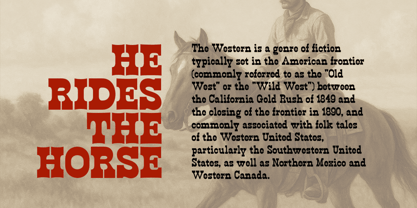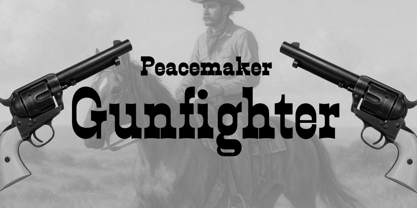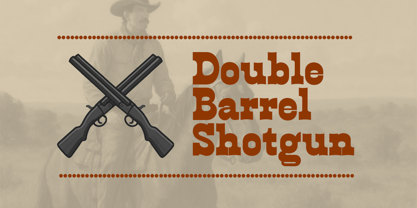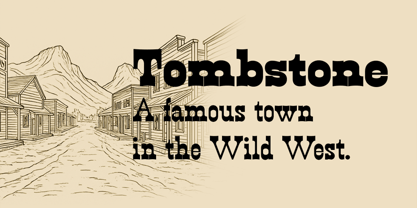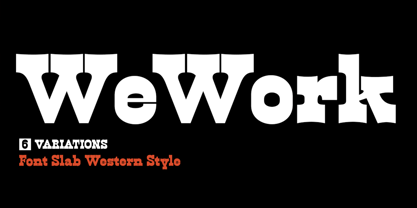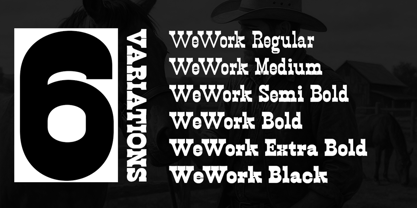
We Work
by Artisan Studio
The We Work Font Family was designed by Roiyani Teungku and published by Artisan Studio. We Work contains 6 styles and family package options. More about this family
We Work is a slab serif font with a perfect balance familiar to Western styles. With We Work, designers can use this font for a variety of purposes, creating elegant designs. It's important to note that We Work is a slab serif font family that differs from other slab serifs in its expressiveness, as We Work is more assertive.
We Work is a variation characterized by flexibility that looks cool in the glyph character section. We Work has a family of six font families.
Designers: Roiyani Teungku
Current Foundry: Artisan Studio